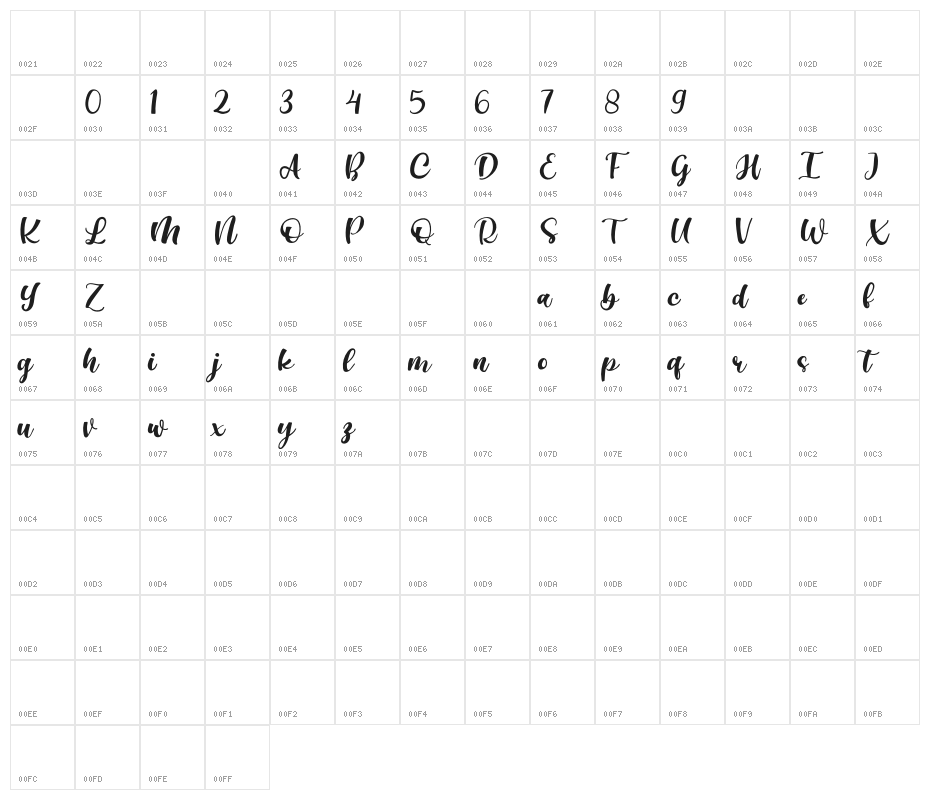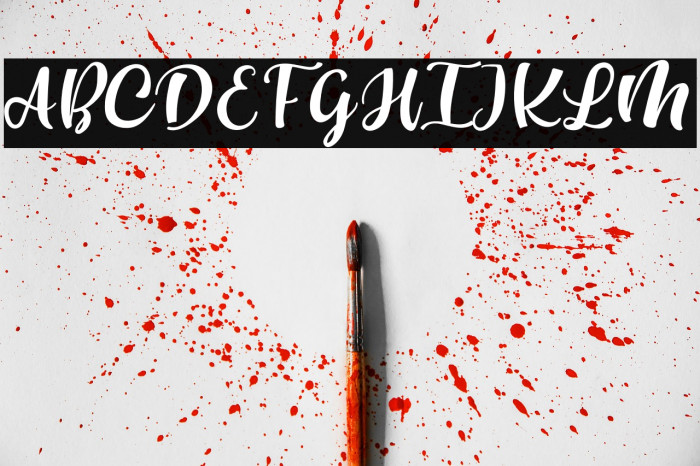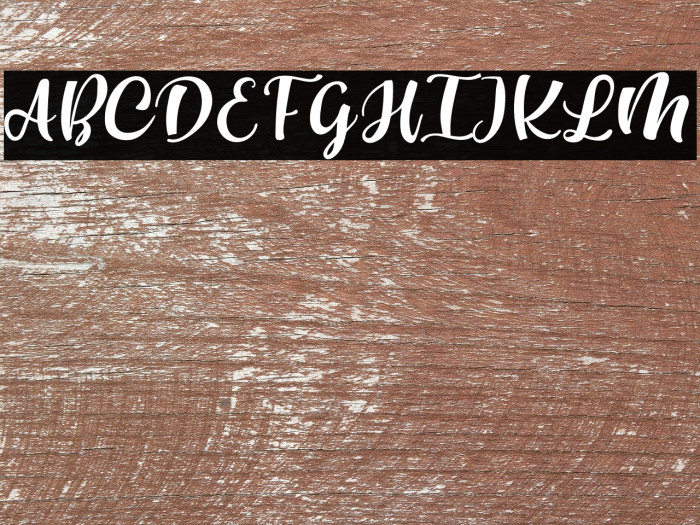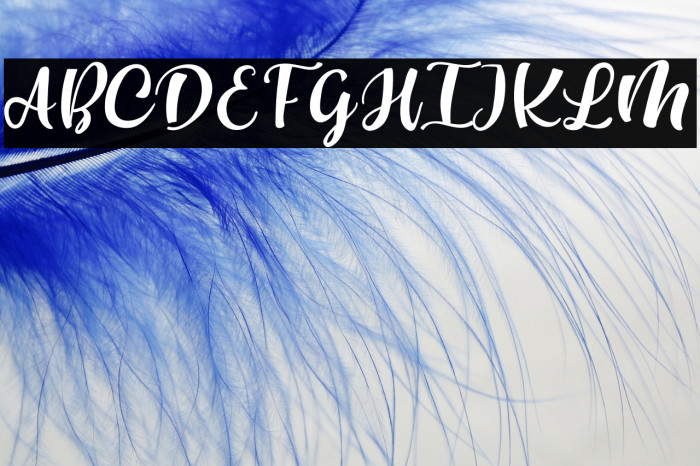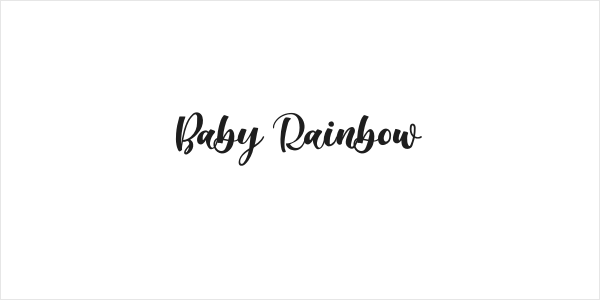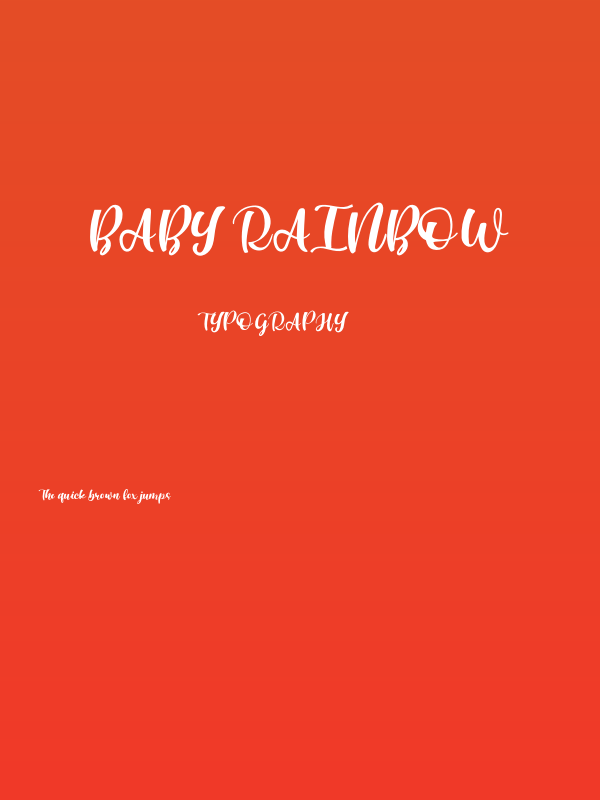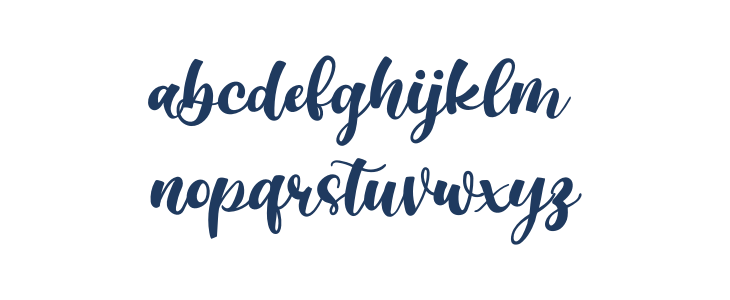
Baby Rainbow Font
Baby Rainbow Description
This font exudes a playful and whimsical charm, characterized by its flowing script style. The letters are elegantly connected, with smooth curves and a consistent stroke width that adds to its legibility. The uppercase letters maintain a sense of grandeur with their sweeping lines, while the lowercase letters are more compact and rounded, enhancing the font's friendly appearance. The numerals are clear and distinct, matching the overall aesthetic with their rounded forms. This font is versatile, suitable for projects that require a touch of elegance and playfulness.